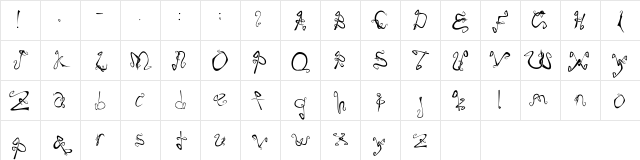
Play With Me Play With Me
Style: Play With Me
Foundry: Juan Saavedra
Designer: Juan Saavedra
Design Context for Play With Me
Play With Me is a composed and adaptable typeface that performs quietly and consistently across a wide range of design contexts.
Pro Tip: Use Play With Me in both headline and body roles to test its range before committing to a single application.